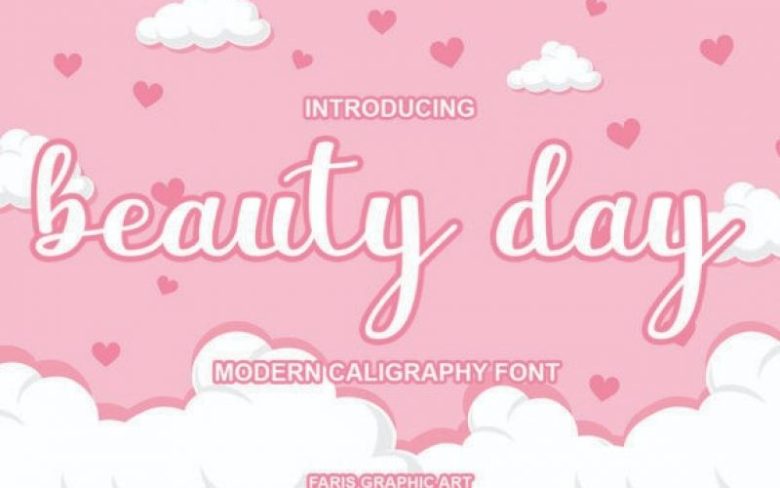
Beauty Day Script Font
Beauty Day is a fund and sweet handwritten font. Fall in love with its incredibly versatile style and use it to create gorgeous wedding invitations, beautiful stationary art, eye-catching social media posts, and much more!